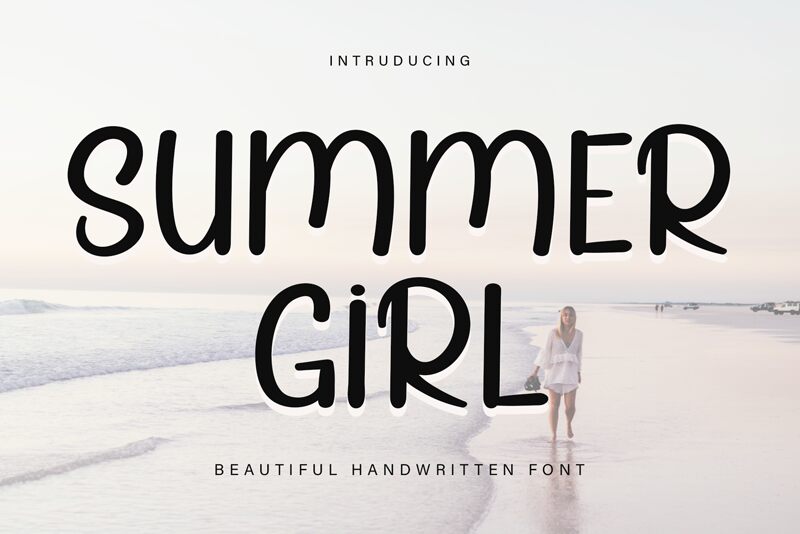
Summer Girl
Summer Girl, designed by Etik Fatimah, is a handwritten font that captures the carefree spirit and vibrant energy of summer. With its fluid and playful letterforms, this font exudes a casual charm that is perfect for projects seeking to convey warmth and spontaneity.
The aesthetic appeal of Summer Girl lies in its seemingly effortless grace; each character is imbued with a personal touch as if penned by an artist on a sunlit afternoon. The varying stroke weights and the subtle irregularities in its forms offer an authentic handcrafted feel, making it an excellent choice for designs that require a touch of personality and intimacy.
Perfect for invitations, greeting cards, branding materials, or any project looking to infuse a sense of joy and lightheartedness, Summer Girl's handwritten style lends itself to creative versatility. Whether you're aiming for whimsical website headers or charming social media posts, Summer Girl will undoubtedly add a distinctive flair to your creative endeavors.